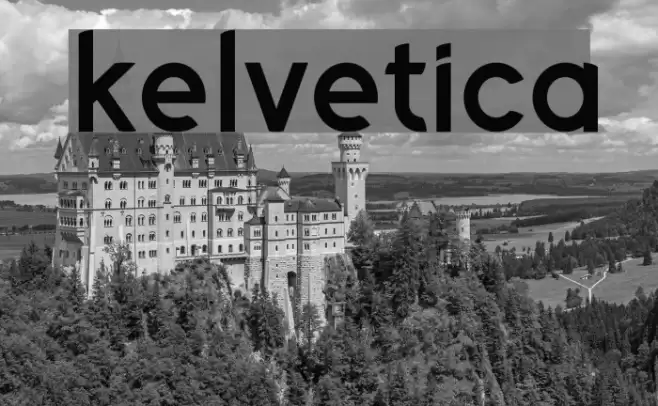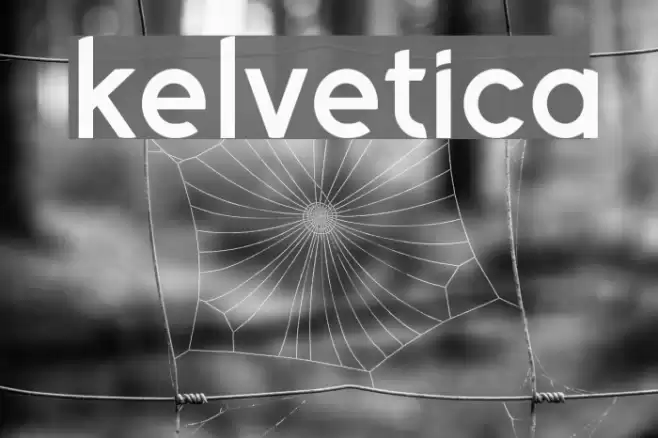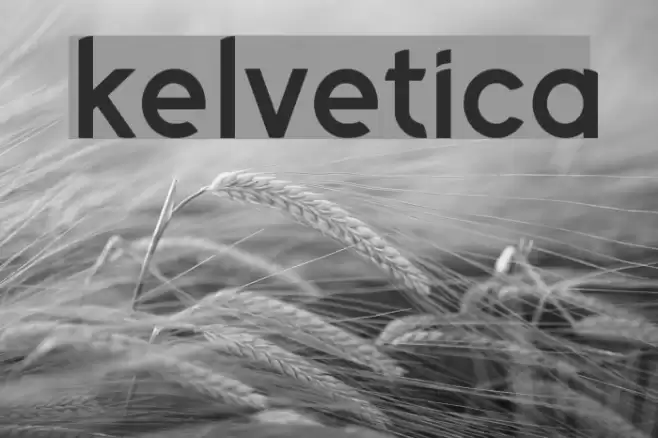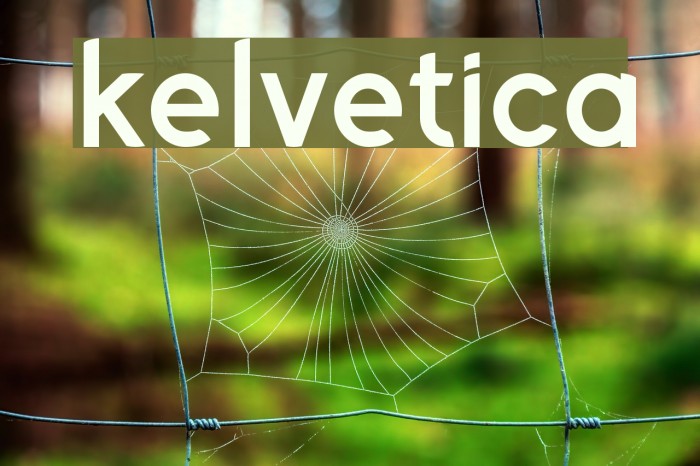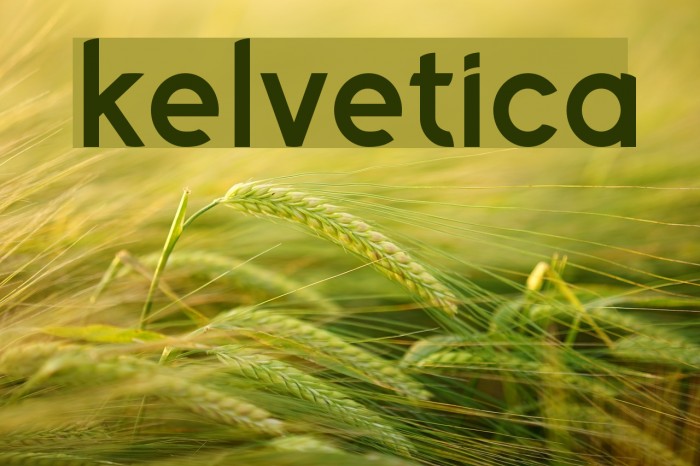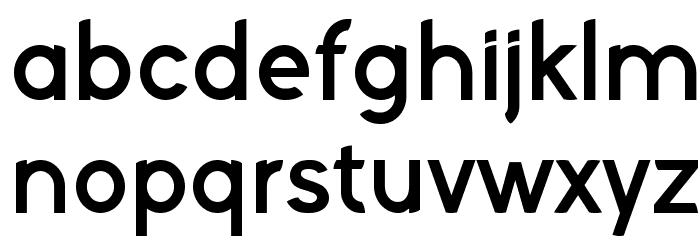
Kelvetica
This font features a clean and modern sans-serif design, characterized by its geometric shapes and uniform stroke widths. The letters are well-proportioned, offering a harmonious and balanced appearance. The lowercase letters have a consistent height, and the uppercase letters are bold and striking, making them highly legible. The overall design is minimalistic, with no unnecessary embellishments, which contributes to its versatility and readability across various mediums.
A modern, geometric sans-serif font with clean lines and uniform strokes.
- Proposed Projects: Ideal for branding, web design, advertising, and editorial projects where clarity and modernity are essential.